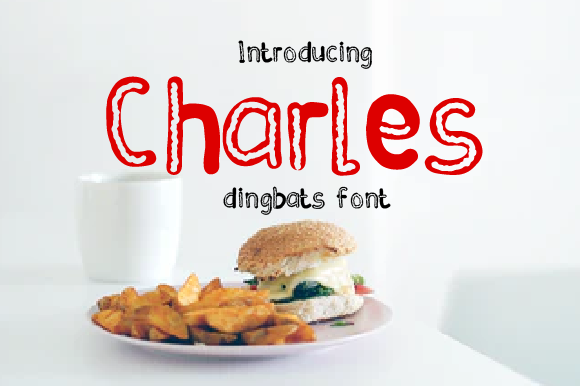
Discover the Charm of Charles Font: A Simple yet Effective Display Font
Are you tired of using the same old fonts for your design projects? Look no further than Charles Font, a simple and charming display font that’s perfect for adding a touch of personality to your work. In this article, we’ll take a closer look at Charles Font, its features, and why it’s a great choice for designers and crafters alike.
What is Charles Font?
Charles Font is a display font that’s designed to be casual and friendly. It’s a simple font that’s perfect for use in a variety of design projects, from branding and advertising to packaging and signage. With its clean lines and approachable feel, Charles Font is sure to make your designs stand out.
Key Features of Charles Font
So, what makes Charles Font so special? Here are just a few of its key features:
- Simple and Shy Design: Charles Font has a simple and understated design that’s perfect for designers who want to add a touch of elegance to their work.
- Casual and Friendly Feel: This font has a warm and approachable feel that’s perfect for brands that want to connect with their audience.
- Highly Versatile: Charles Font can be used in a variety of design projects, from digital designs to print materials.
- Easy to Read: Despite its simple design, Charles Font is highly legible, making it perfect for use in body text and headlines.
Why Choose Charles Font?
So, why should you choose Charles Font for your next design project? Here are just a few reasons:
- Unique and Memorable: Charles Font has a unique and memorable design that’s sure to make your designs stand out.
- Easy to Pair with Other Fonts: This font pairs well with a variety of other fonts, making it easy to use in combination with other typefaces.
- Great for Branding and Advertising: Charles Font is perfect for use in branding and advertising projects, where its friendly and approachable feel can help to connect with your audience.
- Supports Multiple Languages: This font supports multiple languages, making it a great choice for designers who work with international clients.
Using Charles Font in Your Design Projects
So, how can you use Charles Font in your design projects? Here are a few ideas to get you started:
- Branding and Logo Design: Use Charles Font to create a unique and memorable brand identity.
- Advertising and Marketing: This font is perfect for use in advertising and marketing materials, such as brochures, flyers, and social media graphics.
- Packaging Design: Charles Font can add a touch of personality to your packaging designs, making them stand out on store shelves.
- Signage and Wayfinding: This font is also great for use in signage and wayfinding projects, where its clear and easy-to-read design can help to guide people through spaces.
Tips for Getting the Most out of Charles Font
Here are a few tips for getting the most out of Charles Font:
- Pair with Other Fonts: Try pairing Charles Font with other fonts to create a unique and interesting typography combination.
- Use in Combination with Images: This font looks great when used in combination with images, so don’t be afraid to get creative with your design.
Charles Font is a simple yet effective display font that’s perfect for designers and crafters who want to add a touch of personality to their work. With its clean lines, approachable feel, and high versatility, this font is sure to become a favorite in your design toolkit. Whether you’re working on a branding project, advertising campaign, or packaging design, Charles Font is a great choice. So why not give it a try and see the difference it can make in your designs?